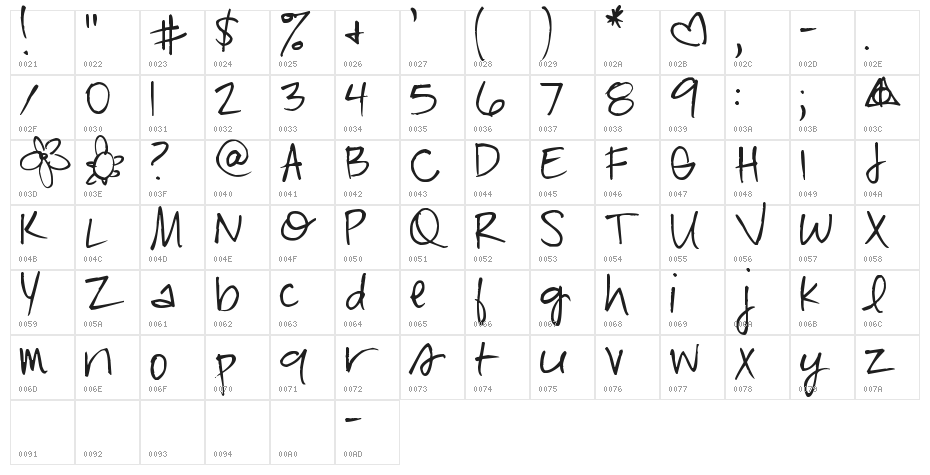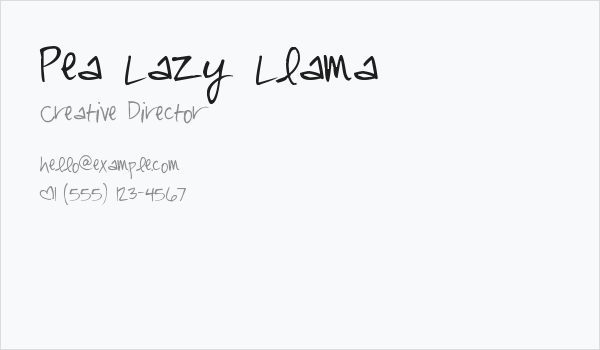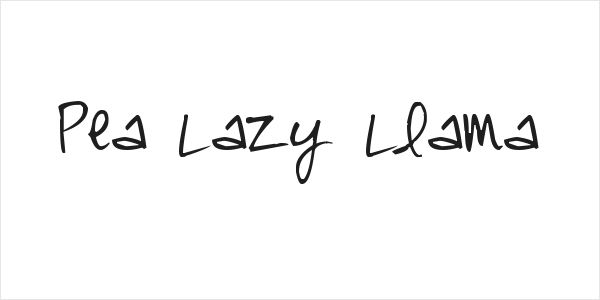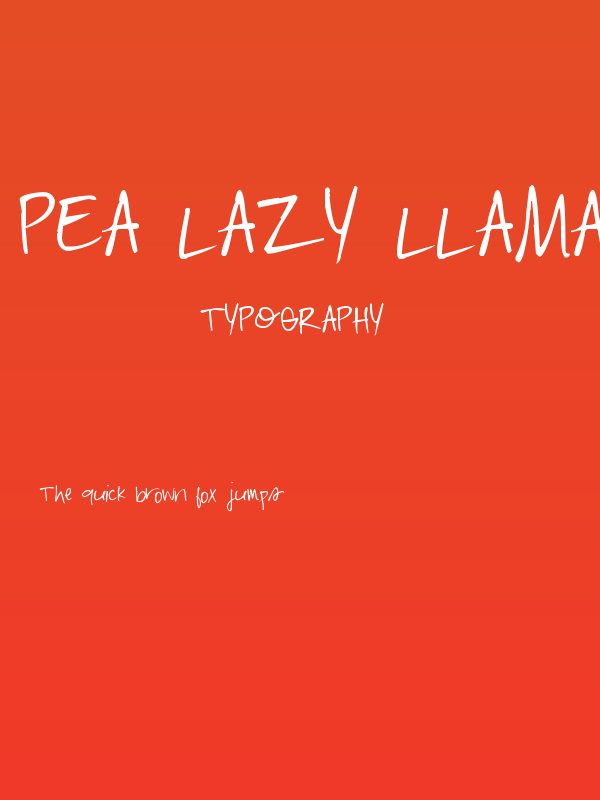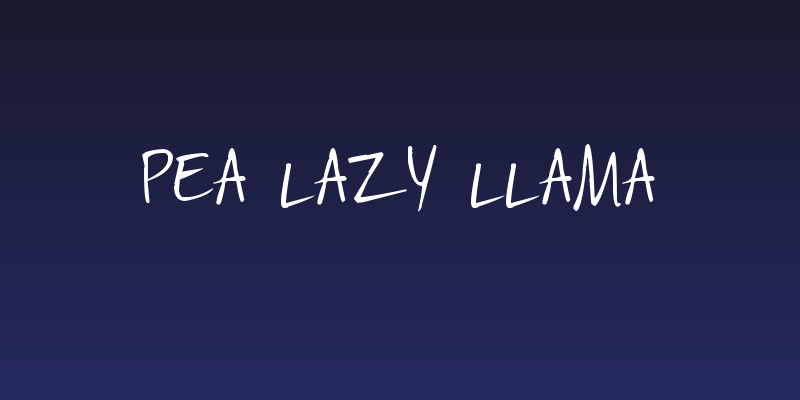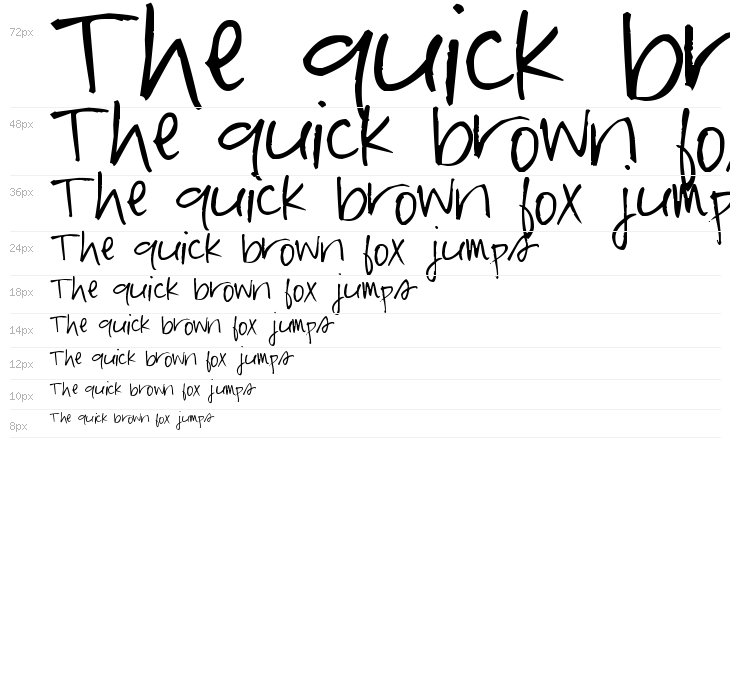
Pea Lazy Llama Font
Pea Lazy Llama Description
This font features a playful and casual handwritten style, characterized by its loose and flowing strokes. The letters have a natural, organic feel, with varying line thickness that adds to its informal charm. The uppercase and lowercase letters maintain a consistent style, while the numerals and special characters complement the overall design. This font's whimsical nature makes it ideal for projects that require a personal touch or a relaxed aesthetic.
| Proposed Projects | Ideal for greeting cards, personal blogs, informal invitations, and playful branding. |